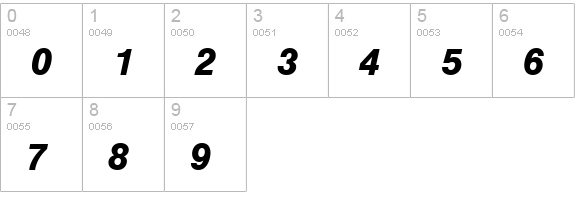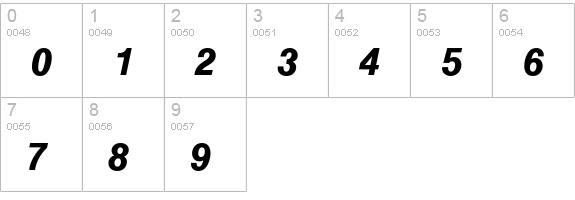
NimbusSanT Bold Italic Font Details
NimbusSanT Bold Italic is a strong, high-contrast, italic variant in the NimbusSanT typeface family \xE2\x80\x94 well suited to headlines, attention-grabbing titles, and strong calls-to-action.
Introducing NimbusSanT Bold Italic font - a dynamic and modern typeface that exudes confidence and sophistication. With its bold yet elegant design, NimbusSanT Bold Italic is the perfect choice for making a bold statement in your designs. Whether you're creating posters, banners, logos, or any other graphic project, this font will add a touch of style and flair. What sets NimbusSanT Bold Italic apart is not only its striking appearance but also its versatility. This font is highly legible and works well in both headline and body text, making it a versatile option for a wide range of design projects. The best part? NimbusSanT Bold Italic is available for free download at FontsMarket.com. So you can elevate your designs without breaking the bank. Don't miss out on this opportunity to enhance your projects with the bold and stylish NimbusSanT Bold Italic font. Download it today and start creating stunning designs that stand out from the crowd.